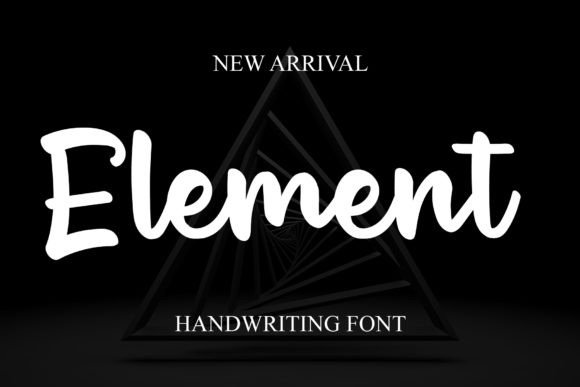
Step into the enchanting world of Element Font, a script font family that exudes charm and charisma. Inspired by the beauty of romance, this font captivates with its delicate strokes and playful curves. Experience the magic of love in every letterform, designed to ignite your creativity and leave a lasting impression.
With Element Font, your designs will blossom with a touch of elegance and sophistication. Its intricate details and graceful glyphs dance harmoniously, adding a touch of enchantment to your projects. Whether you're crafting logos, greeting cards, fashion designs, or marketing campaigns, Element Font will elevate your work to new heights.
Let your imagination soar as you explore the endless possibilities of Element Font. Its versatility shines through in a myriad of design styles, from classic and timeless to modern and edgy. Create standout branding that captures hearts and minds, design captivating greeting cards that convey heartfelt messages, or craft captivating lookbooks that inspire fashionistas.
Element Font is more than just a font; it's an artistic expression that breathes life into your designs. Its charming personality and romantic aura will add a touch of magic to your projects, leaving your audience spellbound.
Join the creative journey with Element Font and unlock a world of endless possibilities. Let your designs flourish with love, joy, and beauty. Discover the enchantment of Element Font today and elevate your designs to new heights of brilliance.